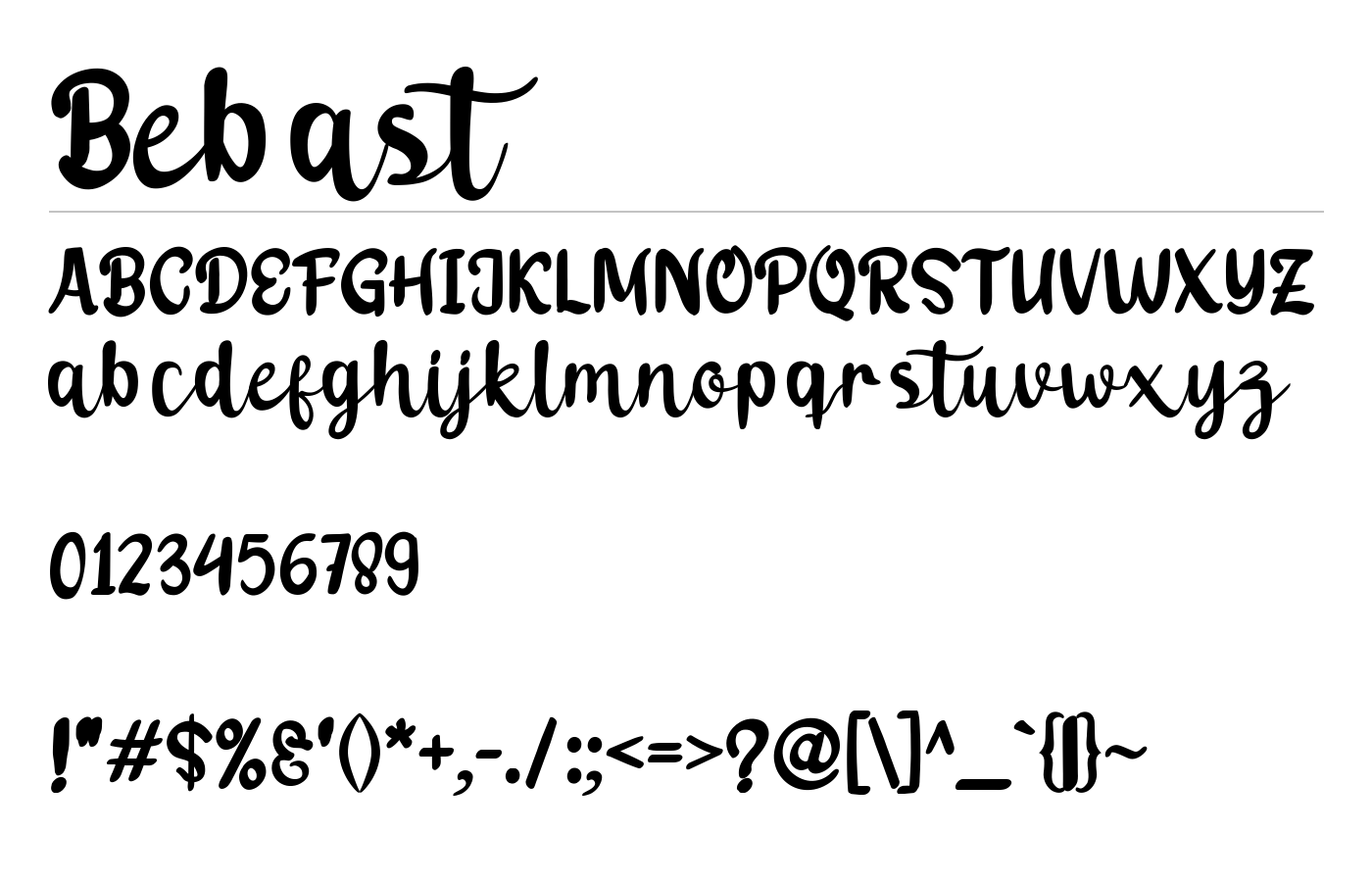
Bebast is a playful and flowing script font that combines casual charm with clear readability. Its soft, rounded strokes and lively, hand-drawn style make it perfect for creative projects, branding, and invitations where a friendly and approachable tone is desired. This font works well for headlines, logos, and packaging that aim to convey warmth and personality.
Bebast Font
About Bebast Font